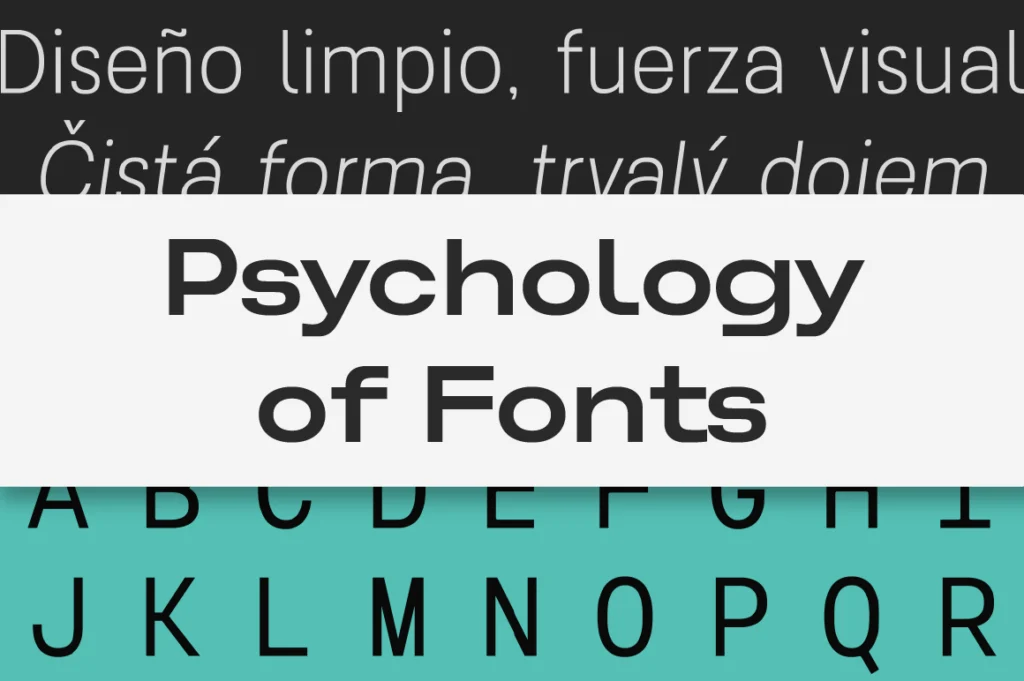
The Psychology of Fonts: How Typefaces Shape Brand Perception
Typography is more than a visual choice — it’s an emotional language. Every font you select communicates subtle messages about your brand’s personality, credibility, and values. From the warmth of a rounded sans serif to the authority of a bold serif, each typeface silently shapes how audiences perceive your brand before they even read a word.
For designers and founders alike, understanding the psychology behind typefaces is the secret to building deeper trust and recognition. Let’s explore how different font categories trigger emotional responses — and how you can strategically use them to reinforce your brand’s tone and story.
1. Serif Fonts — Trust, Heritage, and Authority
Serif fonts (like Vogera or Rotifera) evoke tradition, sophistication, and reliability. Their roots in print and literature make them ideal for brands seeking a timeless, professional image — think law firms, luxury fashion, or editorial publications.
🧩 Use for: Editorial branding, premium packaging, or elegant product identities.
2. Sans Serif Fonts — Modern, Clean, and Approachable
Sans serifs (like Lenia Sans or Lenia Mono) signal clarity, innovation, and forward thinking. Their geometric and minimal forms fit perfectly for startups, technology brands, or lifestyle labels that value simplicity and functionality.
💡 Tip: Pair a bold sans for headlines with a lighter one for body copy to enhance legibility and visual rhythm.
3. Script Fonts — Emotion, Personality, and Human Touch
Script or handwritten fonts (like Crustaceans Signature or Brownies Handdrawn) inject authenticity and warmth. They evoke human connection and creativity, often used in beauty, boutique, or artisanal branding.
🎨 Use for: Logos, packaging, or promotional materials that emphasize emotion and storytelling.
4. Display Fonts — Bold Statements and Distinctiveness
Display typefaces (like Chocho Aura or Gamola) are the extroverts of typography. Their strong visual character instantly grabs attention — perfect for headlines, posters, or digital campaigns aiming to stand out.
Tip: Balance display fonts with a clean sans serif for contrast and readability.
5. Building Emotional Consistency
A cohesive brand experience comes from a consistent emotional tone. Mixing fonts that share the same psychological “temperature” — like pairing modern sans with sleek serif — creates harmony while keeping visual interest alive. Always test your typography across mediums (print, web, mobile) to ensure the intended emotion stays intact everywhere your brand appears.
Conclusion
Typography isn’t just about aesthetics — it’s about psychology. When chosen thoughtfully, fonts can speak louder than words, guiding how your audience feels about your brand at every touchpoint. Start with the emotions you want to evoke — trust, innovation, creativity — and let your typeface choices bring those traits to life.